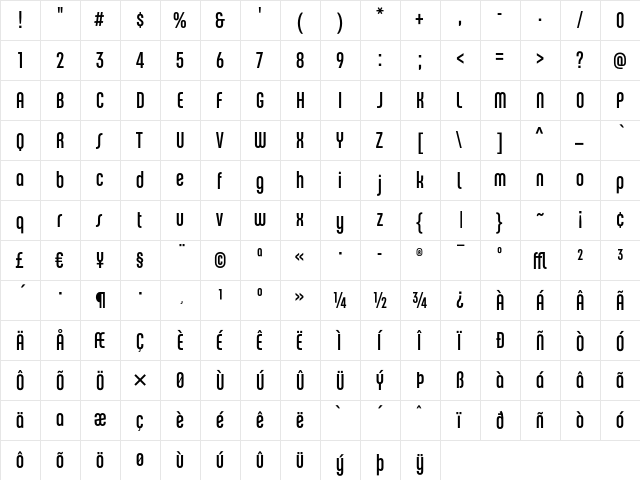
ChaletComprime CologneSeventy
| Designer | Paul van der Laan/House Industries |
Design Context for ChaletComprime Typeface
ChaletComprime is a composed and adaptable typeface that performs quietly and consistently across a wide range of design contexts.